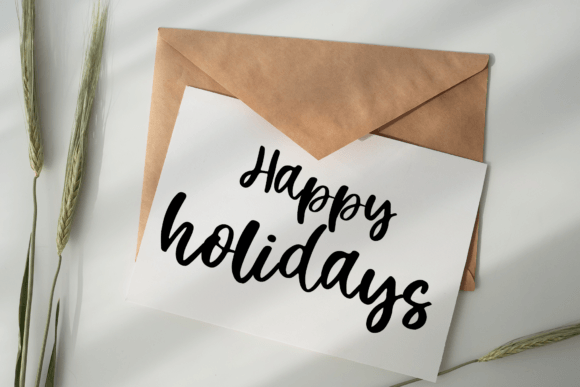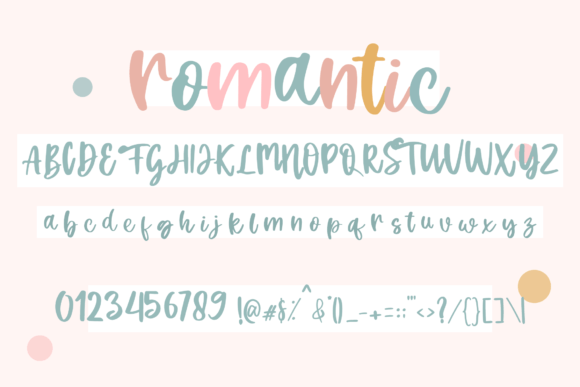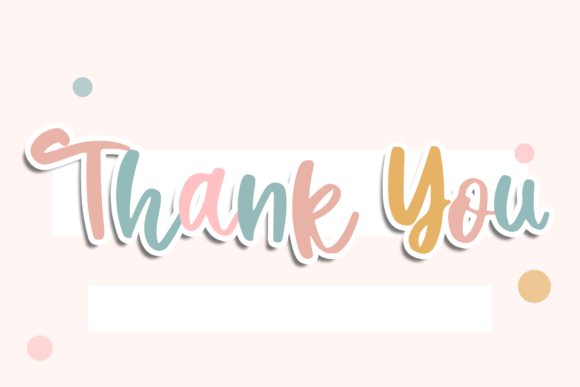
Romantic Font
Romantic: A Stylish Flowing Handwritten Font for Creative Projects
Looking for a way to give your designs a graceful and artistic flair? Romantic is a stylish flowing handwritten font that blends elegance with a modern, casual touch. Whether you’re working on a brand logo or a motivational quote, this font delivers a sense of fluidity and personality that makes your content stand out.
From the very first glance, Romantic evokes warmth, charm, and sophistication.
Creative Possibilities with a Flowing Handwritten Typeface
One of Romantic’s greatest strengths is its versatility. It’s perfect for both digital and print applications. Because the font features well-balanced, natural-looking characters, it adapts beautifully across various design styles.
Here’s how you can use this stylish flowing handwritten font effectively:
• Branding and identity for fashion or lifestyle businesses
• Eye-catching signature-style logos
• Quote graphics for Instagram or Pinterest
• Invitations and greeting cards with a personal feel
• Product packaging and custom merchandise
• Digital scrapbooking, journaling, and planners
Its fluid motion and modern feel make it ideal for anyone looking to inject personality into their designs.
Why Designers Love Romantic Font
Romantic isn’t just visually appealing—it’s also designed for usability. Its balanced curves and clean lines help it stay legible even in smaller sizes, making it suitable for headers and supporting text alike.
Here’s why creatives are drawn to Romantic:
• Naturally flowing handwritten style
• Well-spaced, easy-to-read characters
• Elegant, modern vibe that suits many themes
• Ideal for branding, quotes, and stylish graphics
• Professional look while maintaining an authentic touch
This stylish and elegant font is sure to become a favorite in your collection.
Perfect for Logos, Quotes, and Creative Brands
If you’re designing with emotion, elegance, or personality in mind, Romantic is your go-to font. It works especially well for:
• Boutique branding and elegant packaging
• Quote-based artwork and home décor
• Feminine blog headers and lifestyle content
• Custom designs for small business owners
• Passion-driven DIY and craft projects
Every stroke in Romantic feels intentional, helping you create work that resonates.
Romantic is more than just another handwritten font. It’s a modern, expressive typeface designed to make your words come alive. With its fluid lines and sophisticated charm, this stylish flowing handwritten font is ready to elevate your next design.